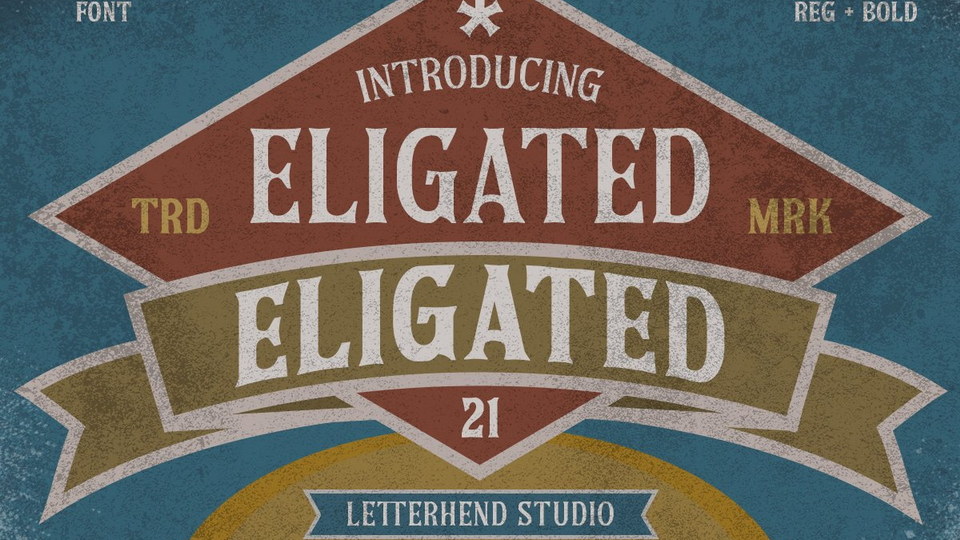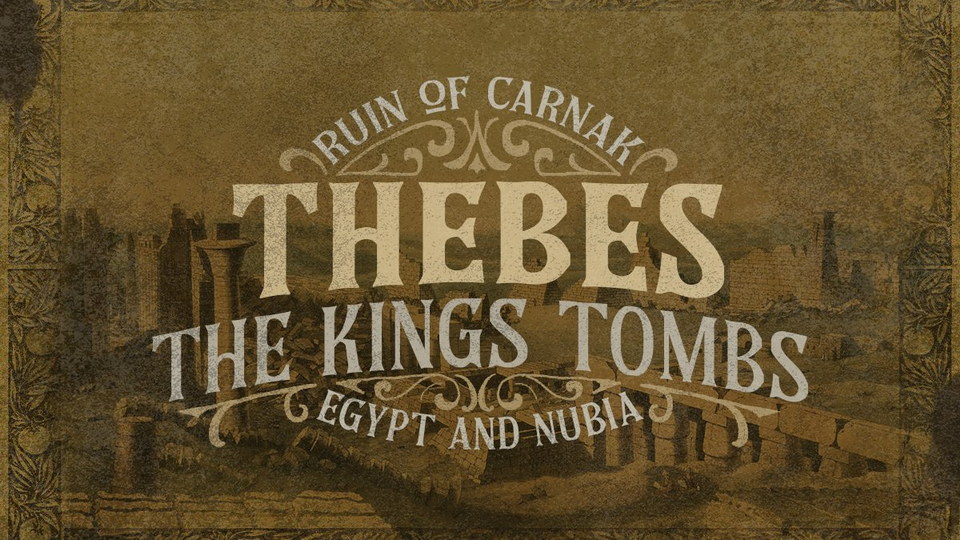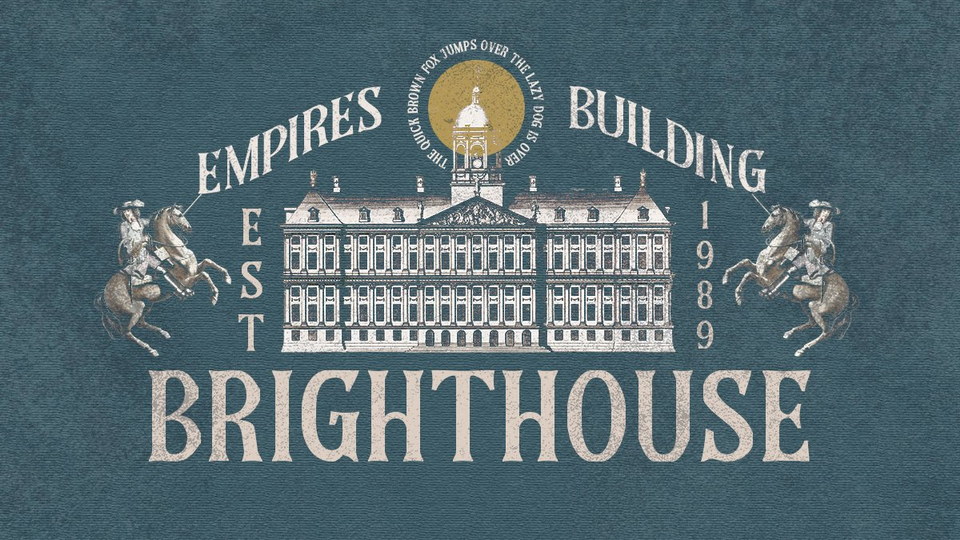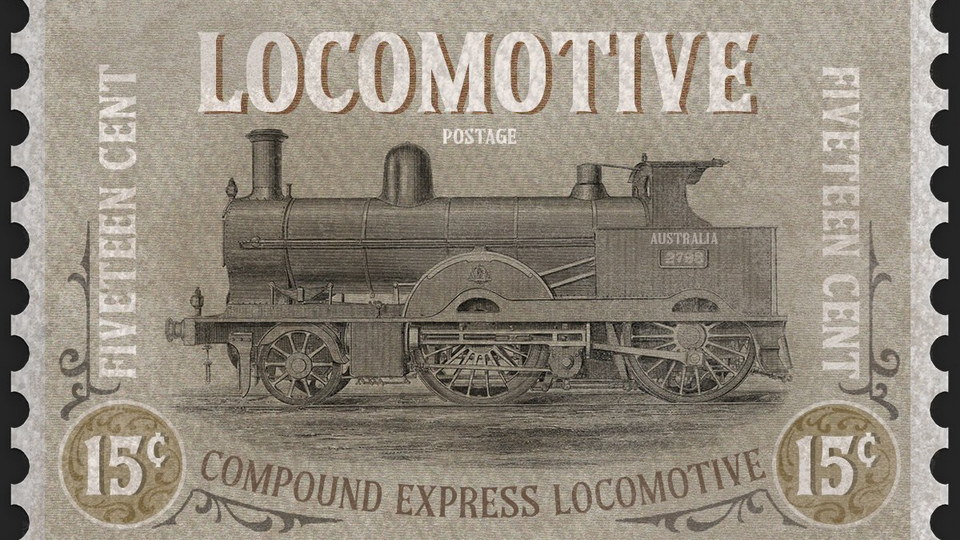
Eligated Font
Eligated is a display serif typeface with nostalgic look and feel. Inspired by 60s and 70s signages, labels, and ads.
Eligated font perfectly made to be applied especially in logo, headline, signage and the other various projects, labels,  magazines, books, packaging, posters or any type of advertising purpose.